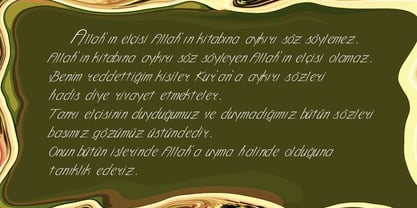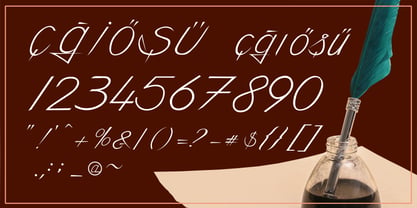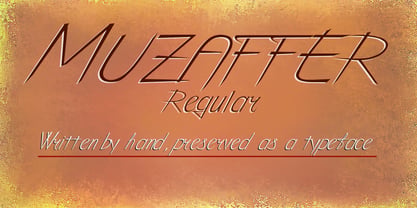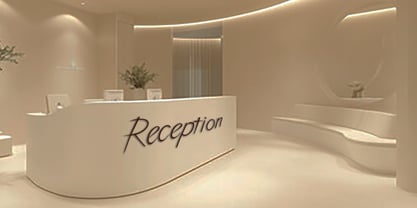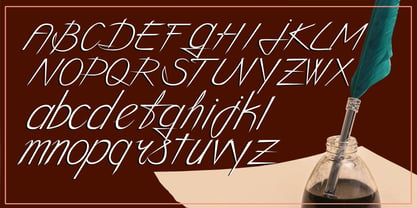
Muzaffer
The Muzaffer Font Family was designed by Zafer Erdinç Akın and published by DGSA Type Foundry. Muzaffer contains 1 styles. More about this family
Muzaffer is a handwritten typeface inspired by the authentic handwriting of my father.
Instead of reproducing a generic handwritten style, Muzaffer was developed from real handwritten letterforms, preserving their natural movement, irregularities, and personal character.
The result is a warm, genuine typeface Muzaffer is a handwritten typeface inspired by the authentic handwriting of my father. Instead of reproducing a generic handwritten style, Muzaffer was developed from real handwritten letterforms, preserving their natural movement, irregularities, and personal character. The result is a warm, genuine typeface with the feeling of handwriting written by a real person. Perfect for: Signatures & personal branding, Logos and branding projects, Wedding invitations & stationery Posters and greeting cards, Social media graphics, Quotes and inspirational designs, Packaging and labels, Creative and personal projects. Muzaffer works especially well when you want your design to feel personal, natural, warm, and authentic. Features: Authentic handwritten letterforms, Natural handwritten appearance, Regular style, Suitable for both personal and creative design projects. Muzaffer, written by hand, preserved as a typeface. handwriting written by a real person.